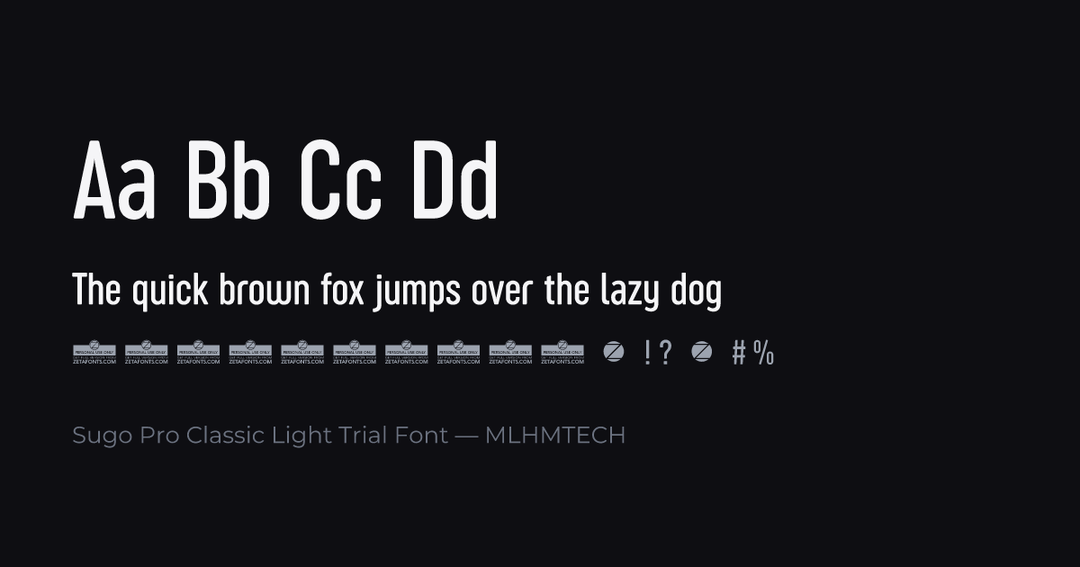
Sugo Pro Classic Light Trial Font
A clean, modern sans-serif font with a classic touch, ideal for branding, headlines, and elegant designs. This trial version includes basic characters.
Sugo Pro Classic Light is a refined sans-serif typeface that balances geometric structure with a warm, approachable feel. Its light weight is perfect for large display sizes, logos, and editorial layouts where a subtle, sophisticated presence is needed.
Pair it with a strong serif for contrast or use it alone for a minimalist aesthetic. Its clean lines ensure legibility across digital and print media.